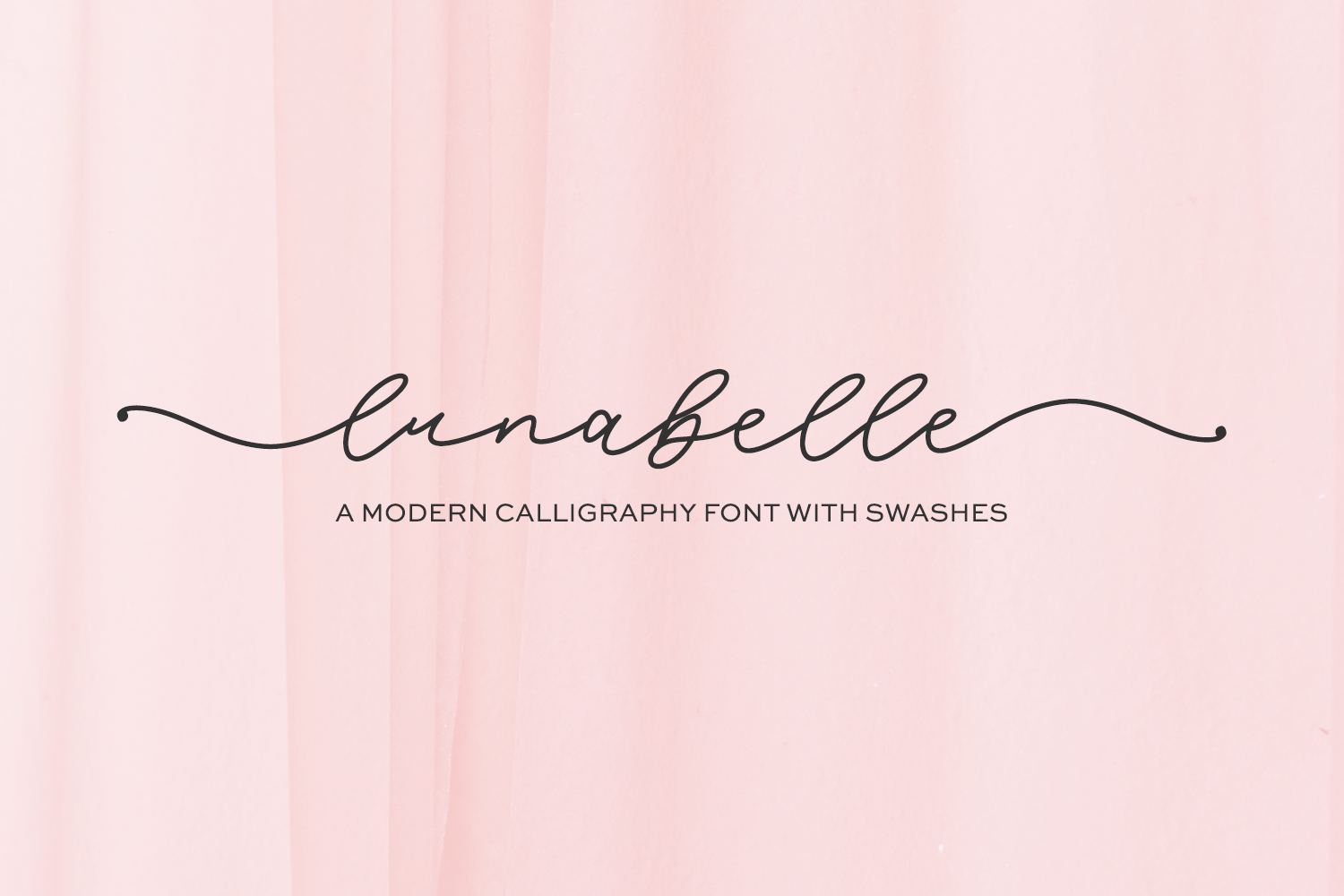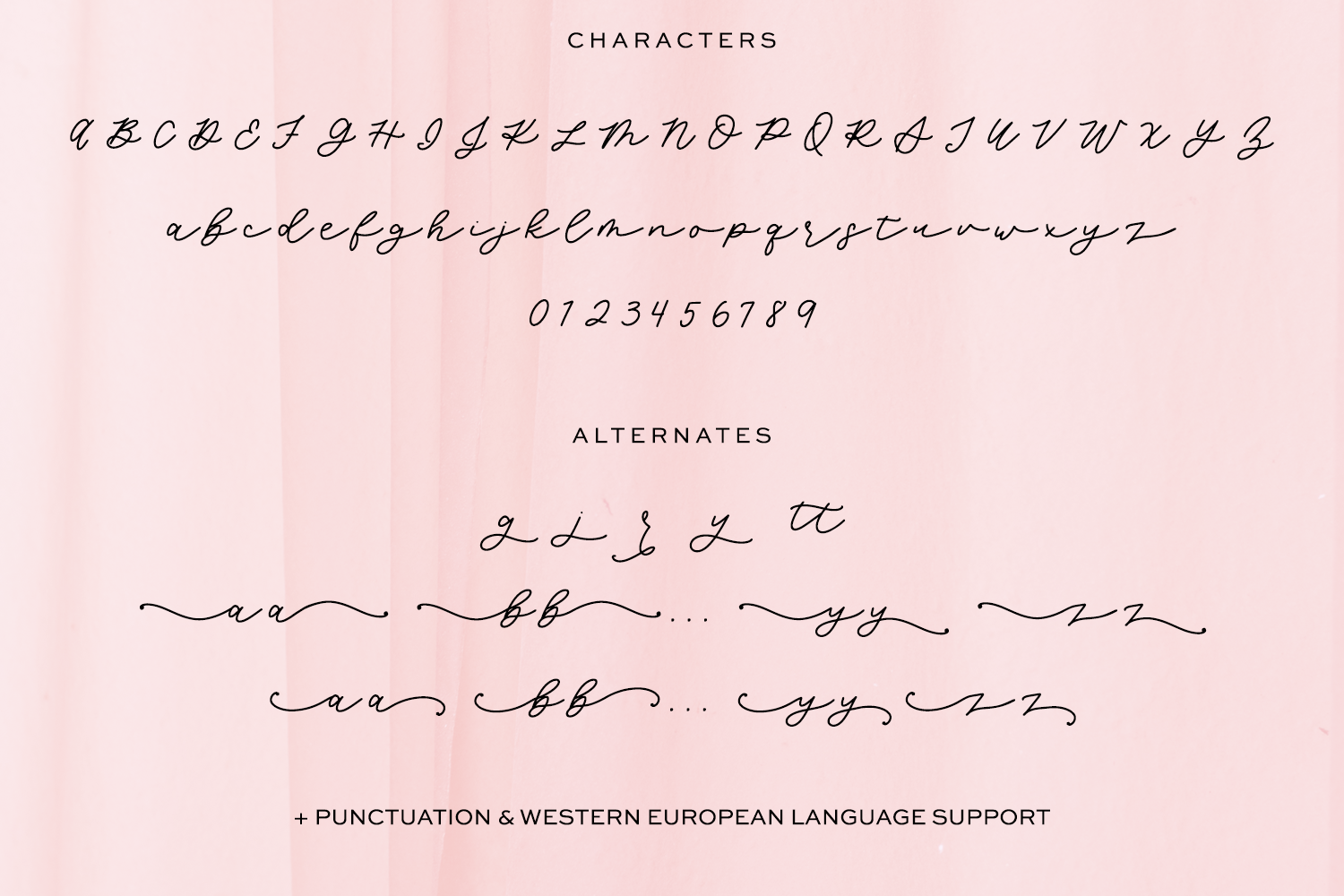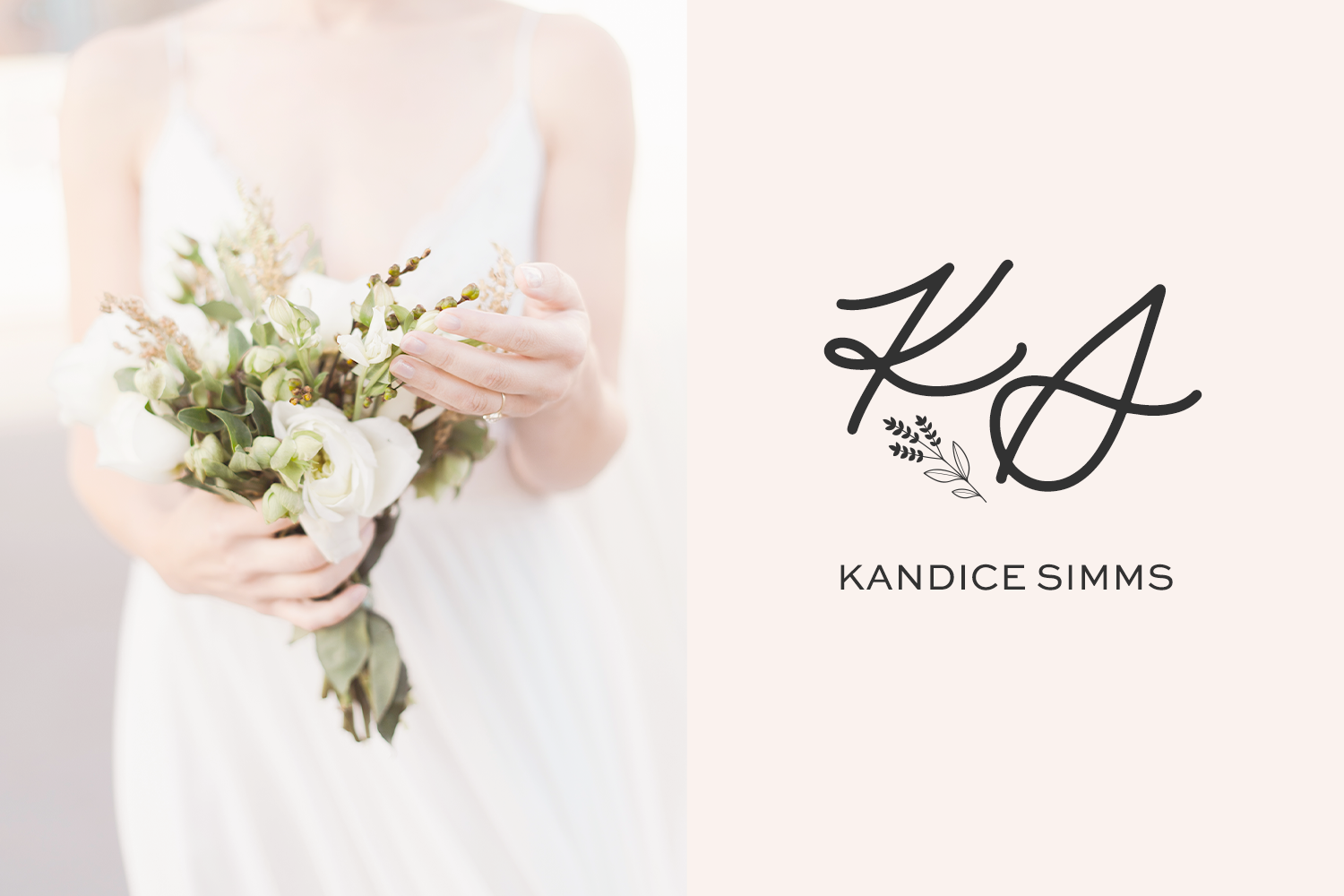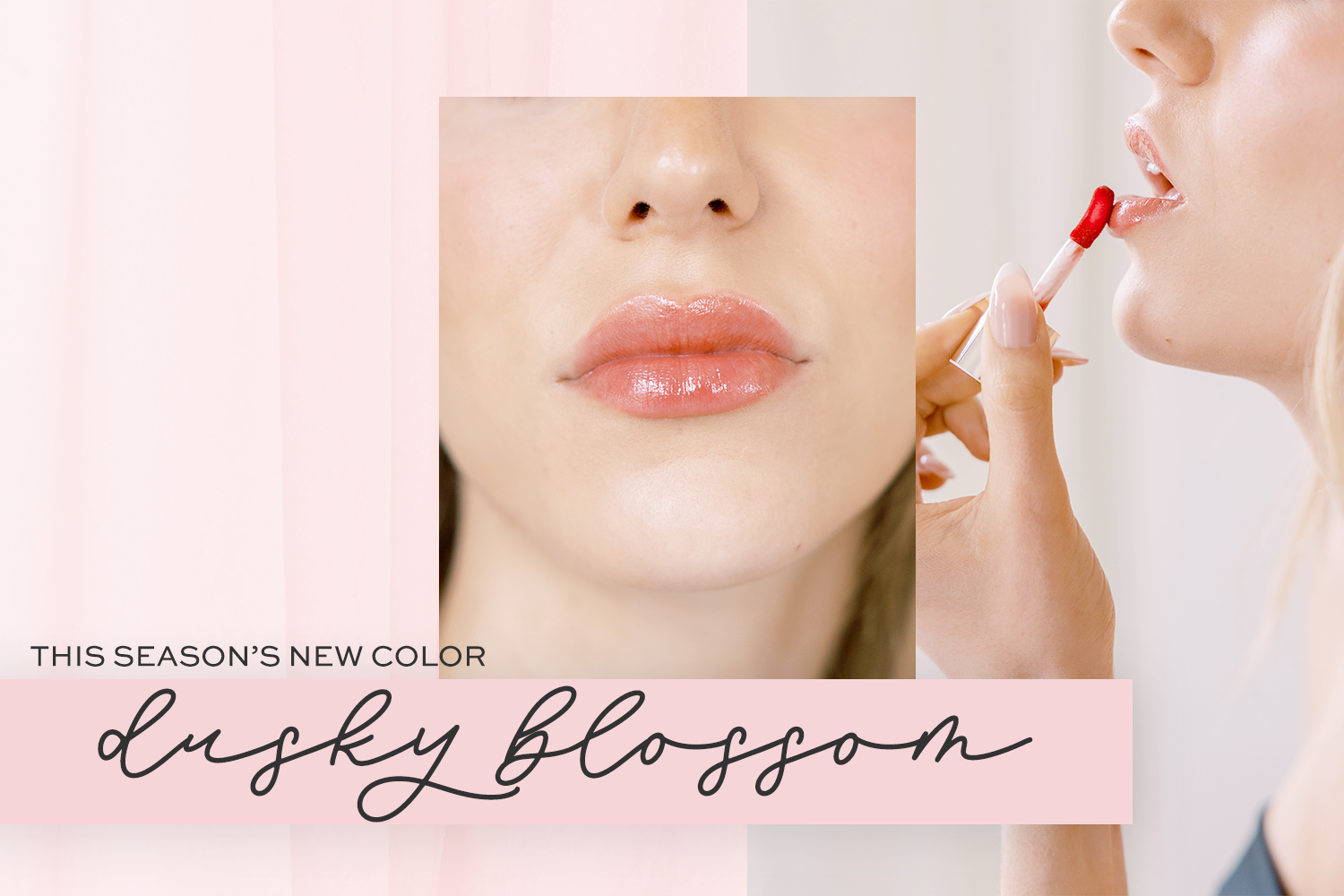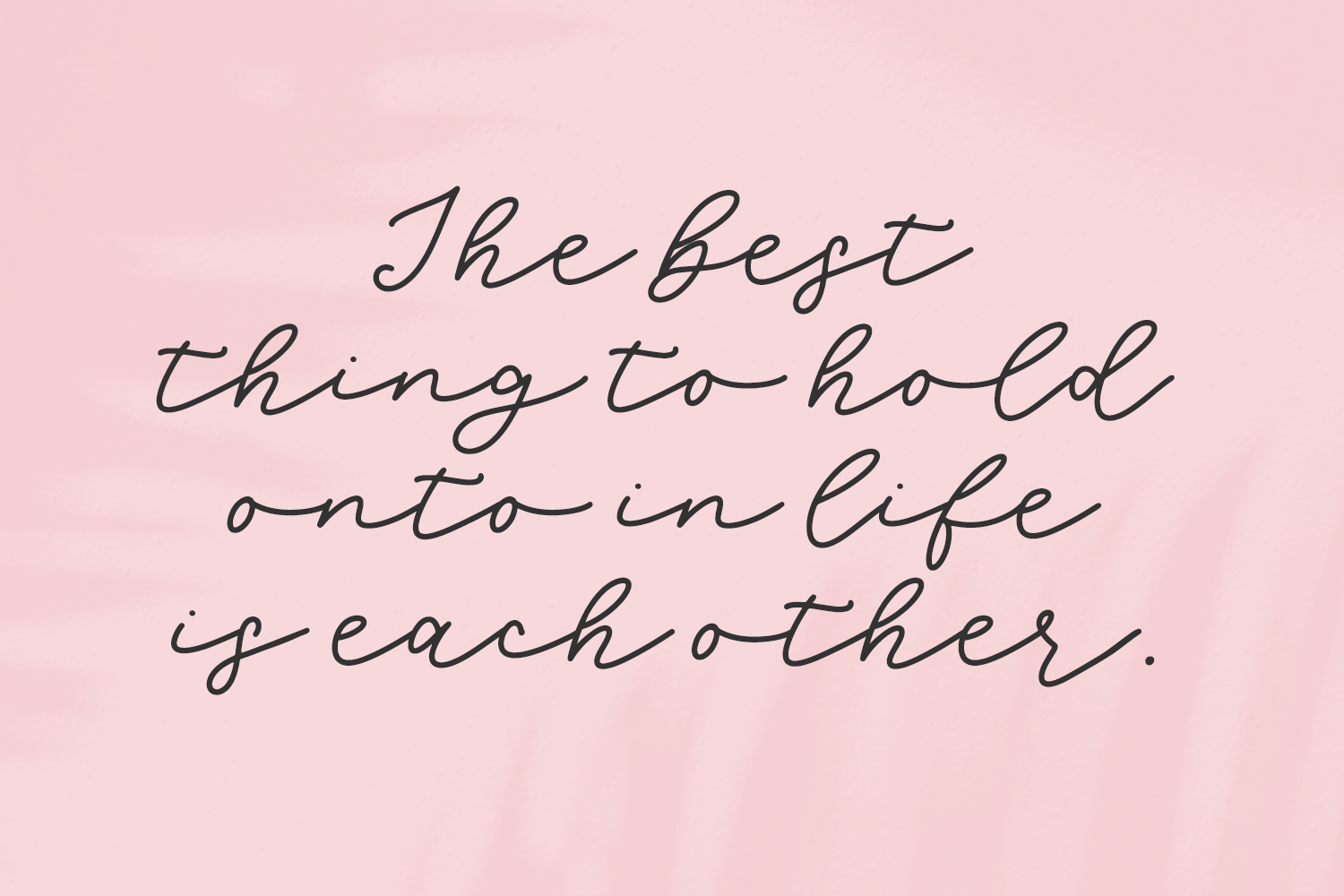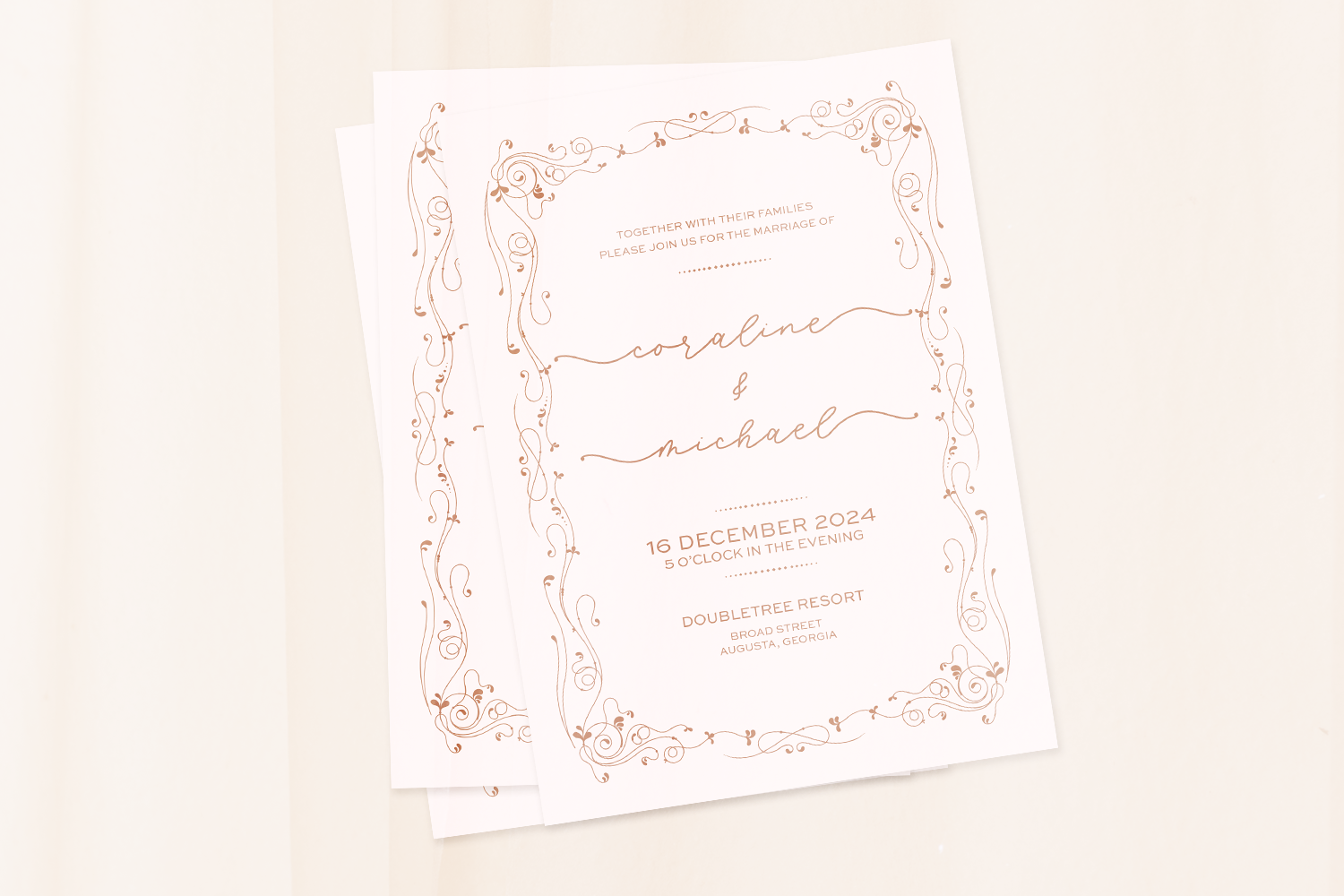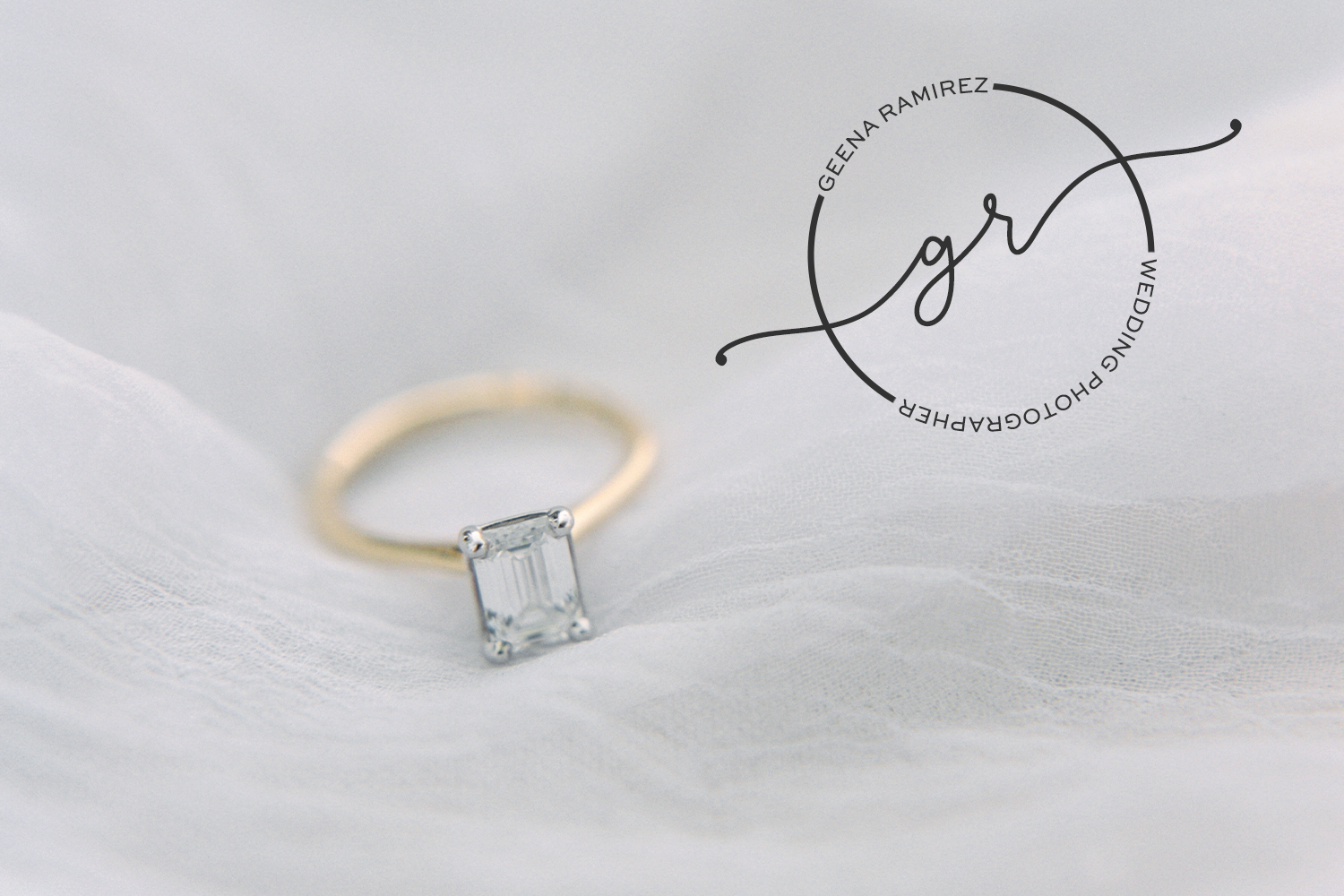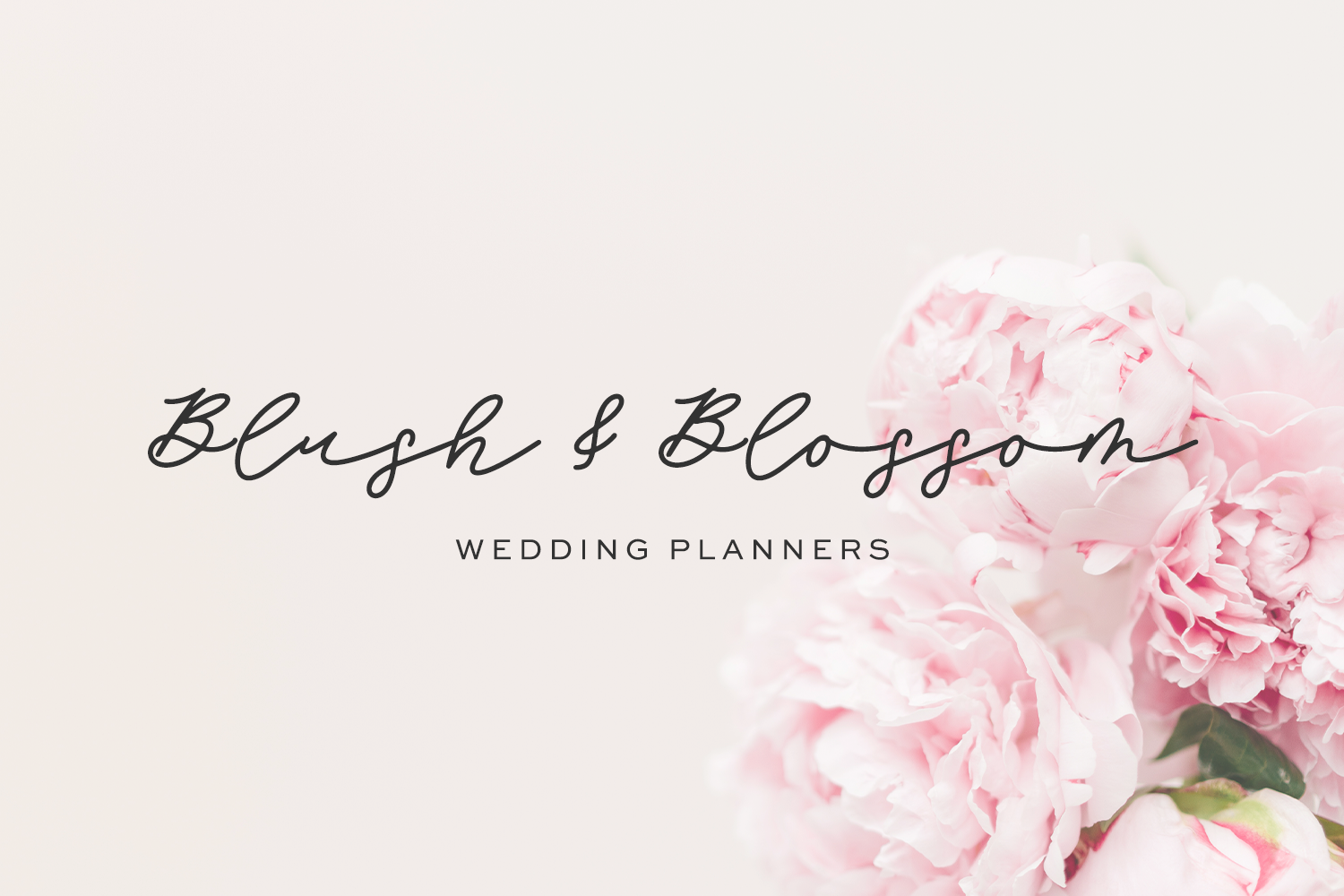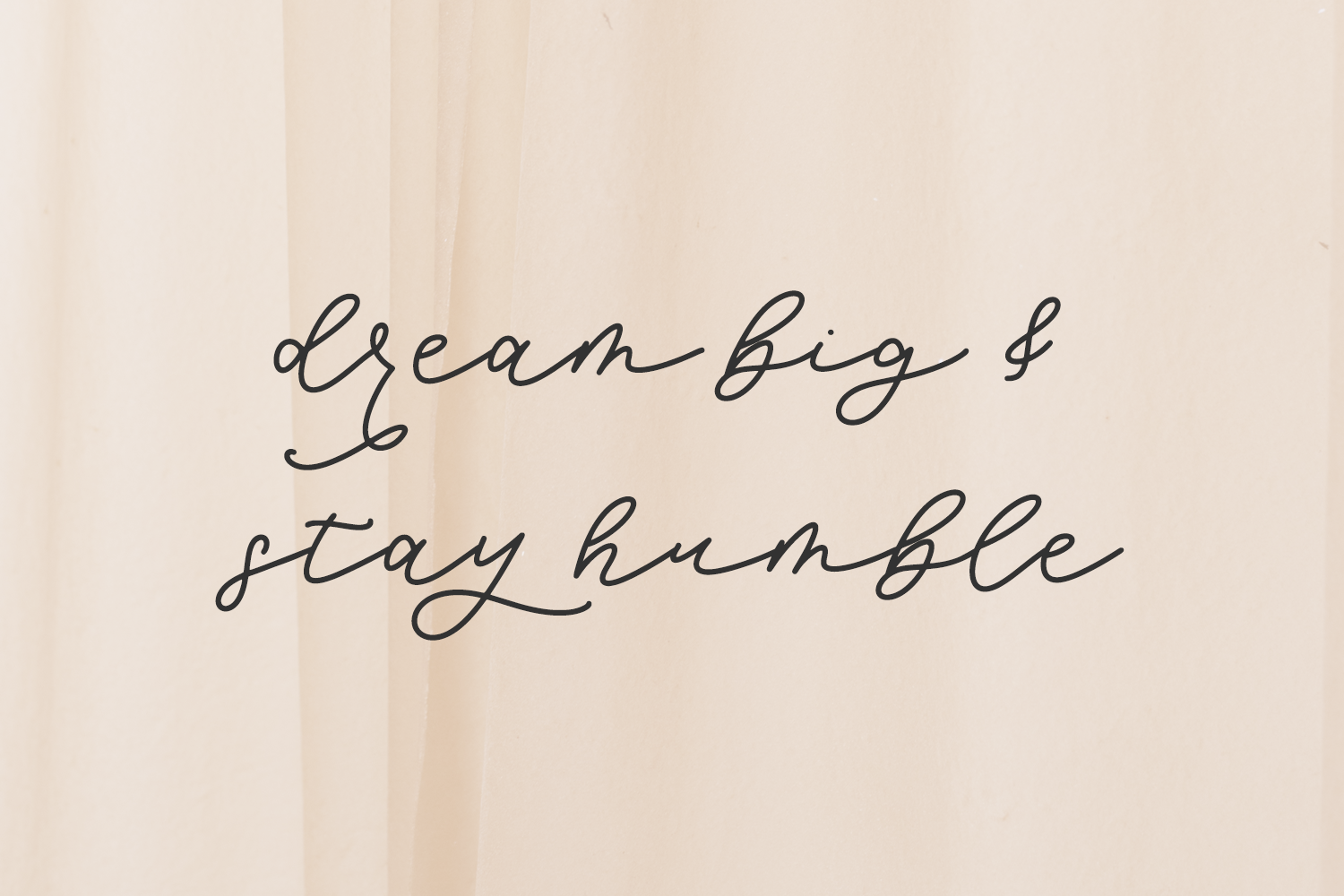
Lunabelle Script Font
Introducing Lunabelle, a flow cursive font with left and right swashes. Lunabelle is perfect for wedding invitations, greeting cards, social media posts, marketing materials, watermarks, logos & branding, or quote graphics.
Lunabelle includes:
– upper + lowercase characters A-Z and a-z
– numbers 0-9
– punctuation
– 4 alternates – g, j, r, y
– 1 ligature – tt
– two full a-z swash sets for both left and right swashes (104 total glyphs)